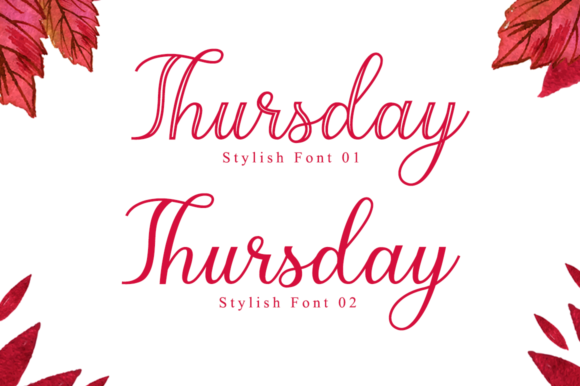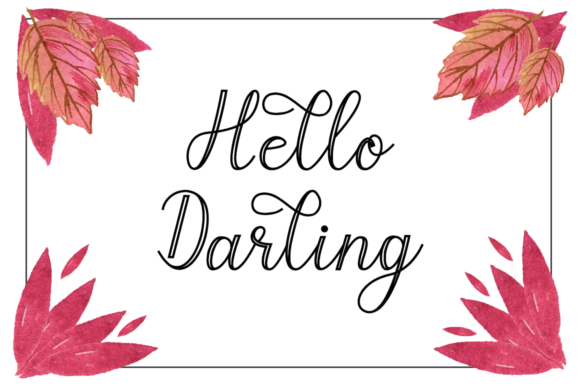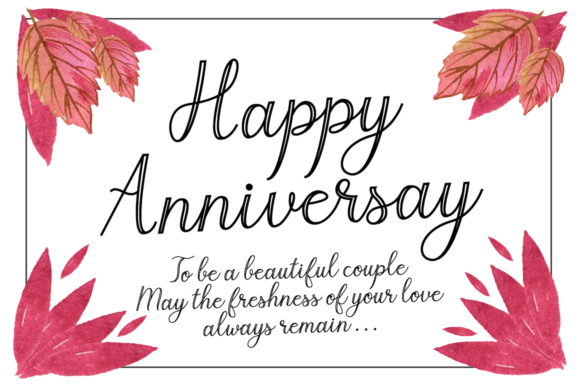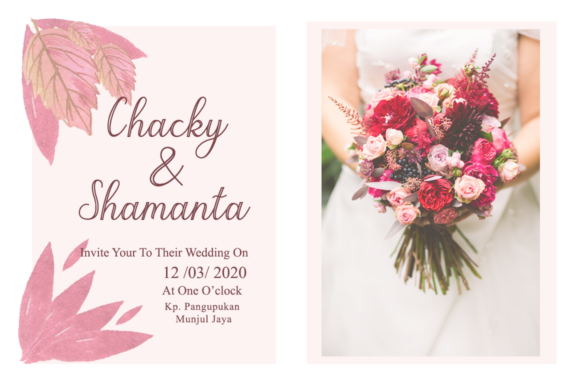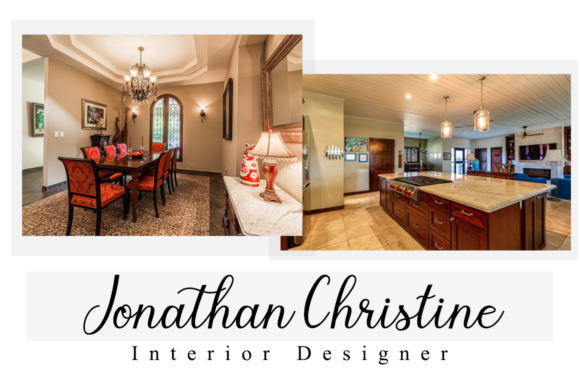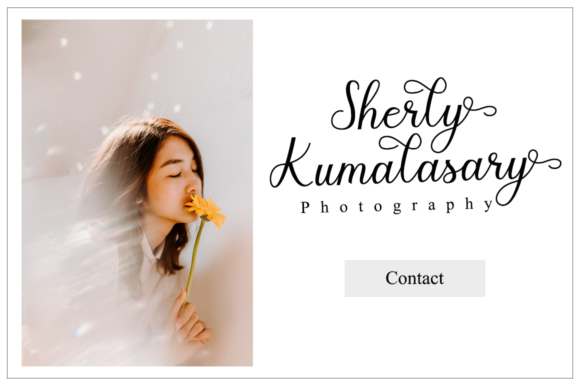
Introduction to Salvyna Font
Have you ever been working on a design project and suddenly, the perfect font pops into your mind? That’s exactly what happened to me when I stumbled upon the Salvyna Font. Its elegant and beautiful style immediately caught my attention, and I knew I had to learn more about it.
The Salvyna Font is a stunning addition to any designer’s toolkit, offering a unique combination of hand-stroke lettering and customizable tail styles. With its high-quality design, this font is perfect for a wide range of creative projects, from branding to publishing.
Key Features of Salvyna Font
- High-quality, professional font suitable for creative projects and design resources.
- Transparent background, allowing for seamless integration with various design elements.
- Supports a wide range of languages, making it a versatile design resource.
Honest Review: Salvyna Font
I recently came across the Salvyna Font and was excited to dive in and see what it had to offer. As a designer, I’m always on the lookout for high-quality design resources to elevate my creative projects.
Here are some things that work well: ✨
- Unique and stylish design aesthetic
- High-quality font files for crisp and clear rendering
- Easy to customize and manipulate
However, there are a few limitations: ⚠️
- Limited font styles and variations
- Not ideal for complex or large-scale design projects
Overall, I’m impressed with the Salvyna Font. While it may not be the most comprehensive font pack, it’s a great addition to any designer’s toolkit, and the free download makes it a no-brainer for anyone looking to add some style to their creative project.
Tips and Best Practices
For the most effective use of Salvyna Font, keep the design simple and let the font take center stage. Combine it with high-quality images or graphics to create visually appealing designs. Experiment with different font sizes and styles to achieve the desired effect.
The Salvyna Font is ideal for various creative projects, including business cards, brochures, posters, and social media graphics. Its unique design makes it perfect for branding and promotional materials.